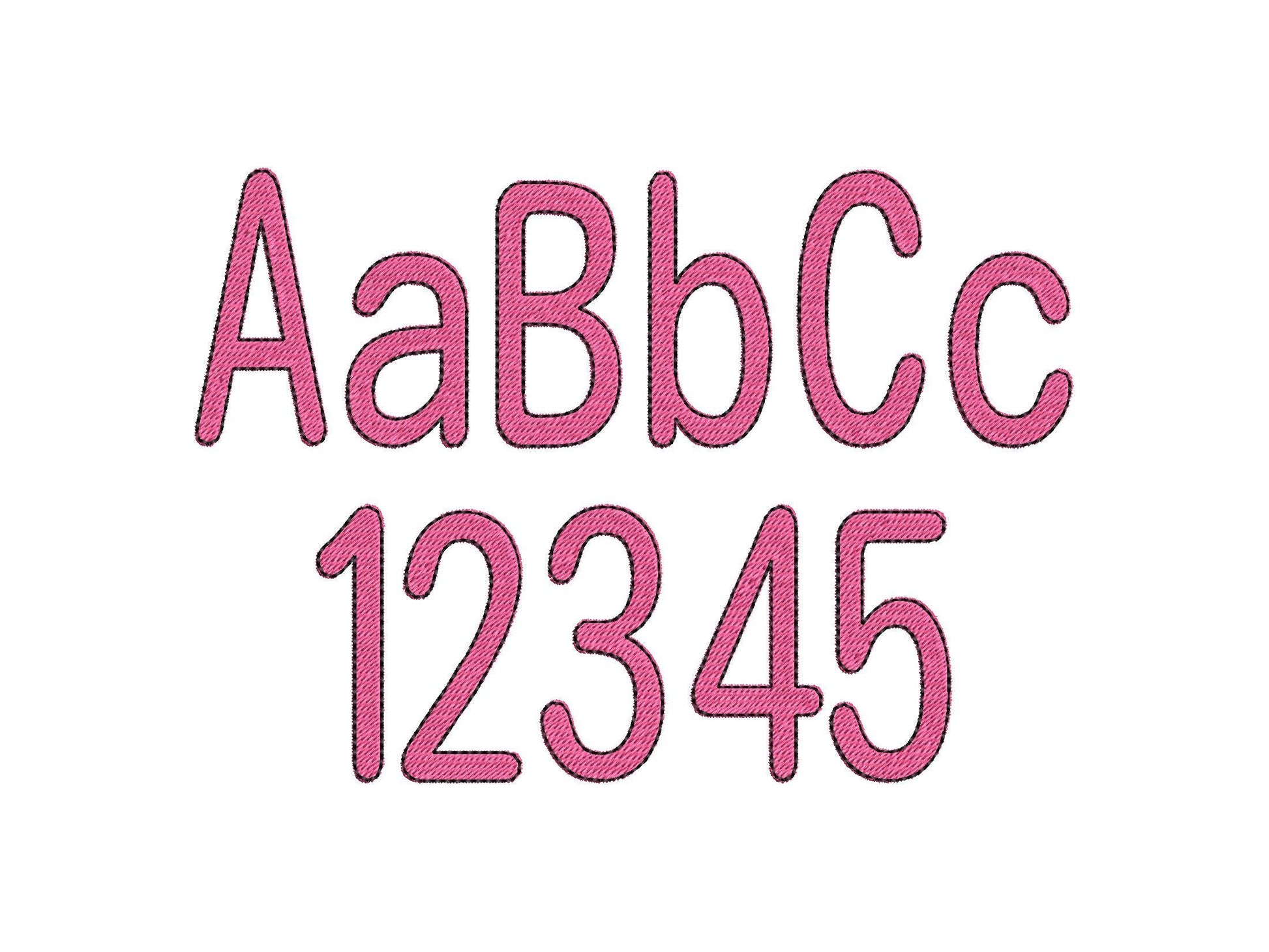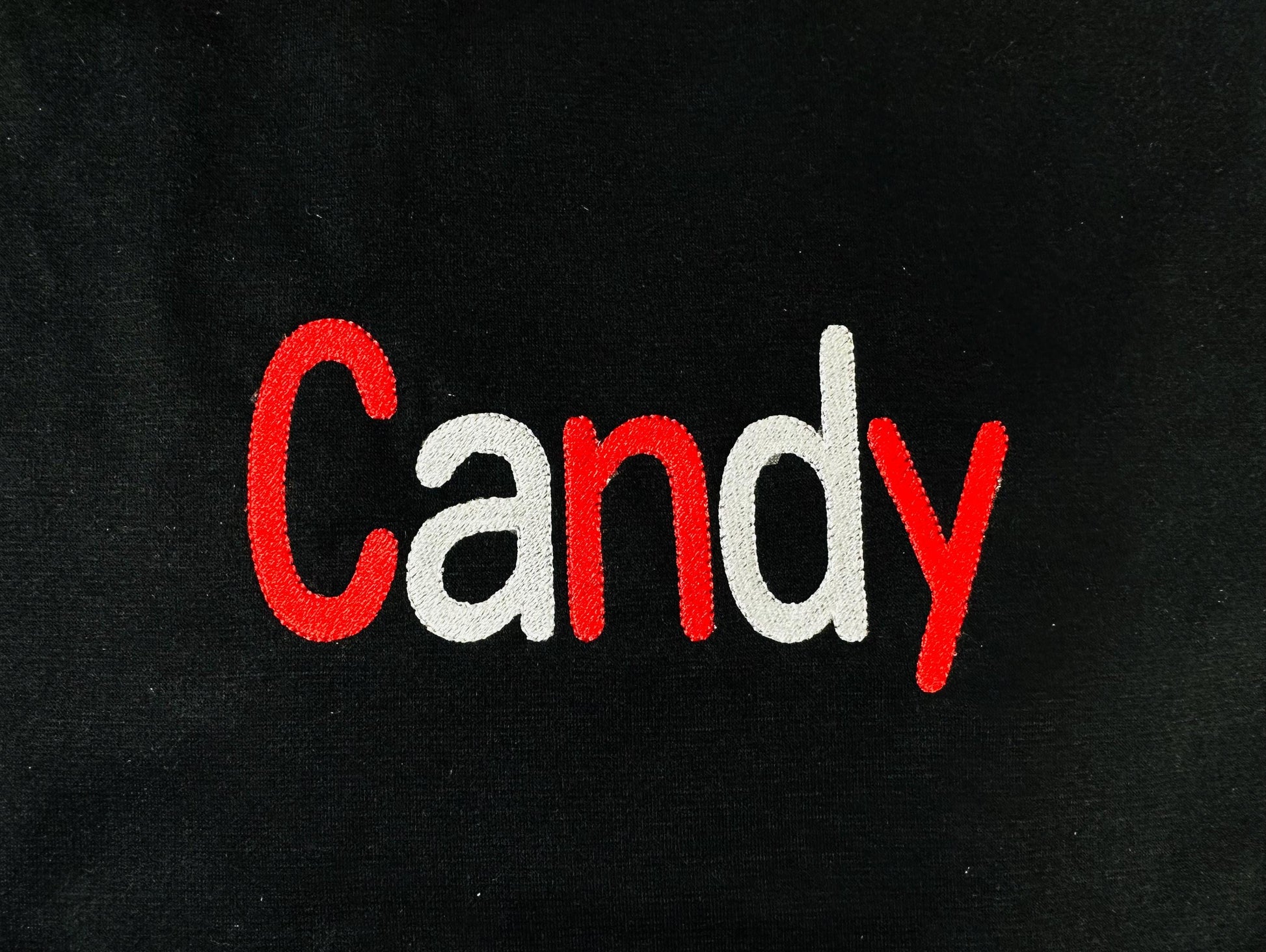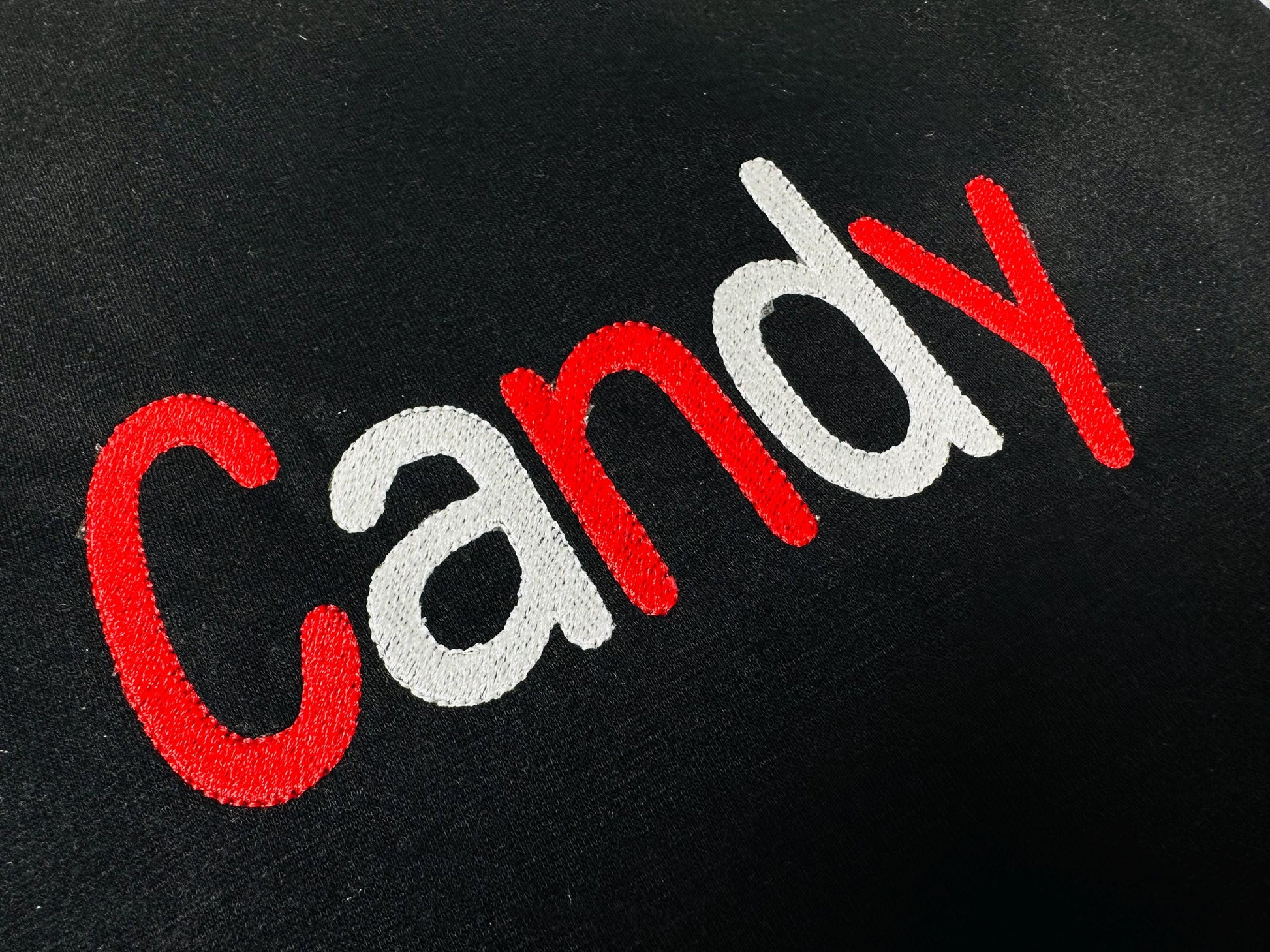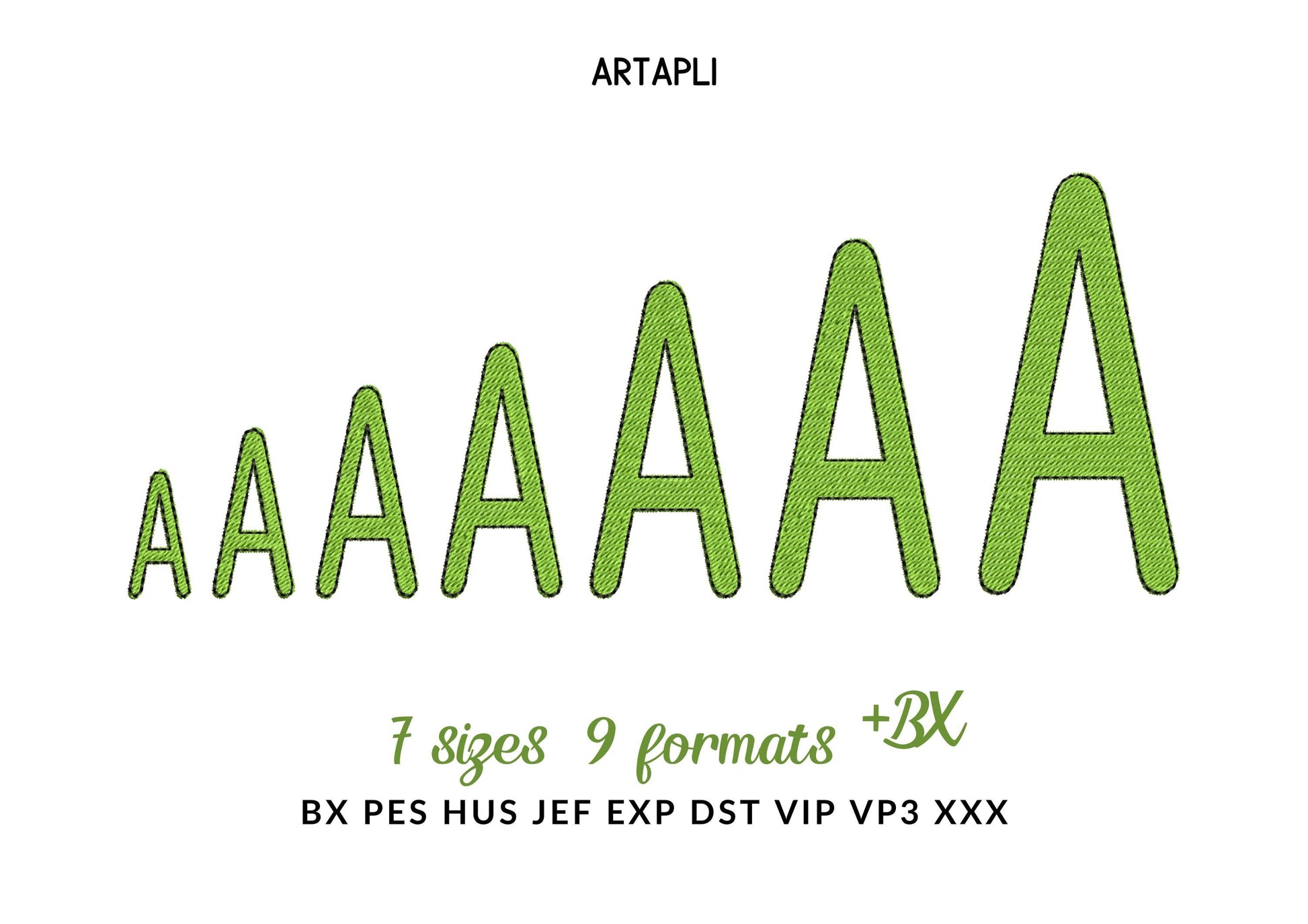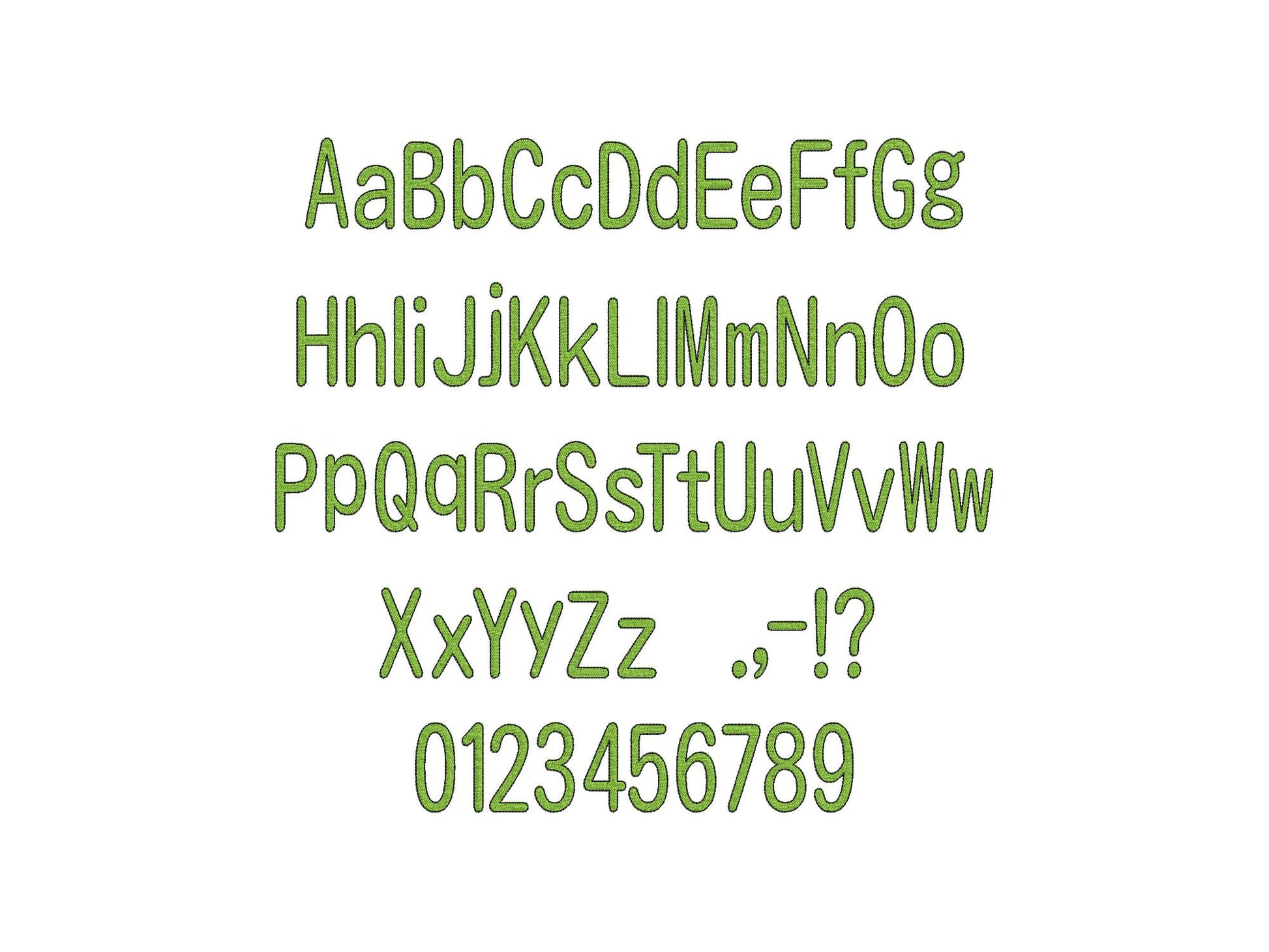
Fill Stitch Narrow Thin Font
Or click to open the linkA narrow, thin candy font in fill stitch with an outline, for names and words on shirts, bags and holiday gifts.
Uppercase and lowercase letters, numbers and punctuation in seven sizes: 1, 1.4, 1.7, 2.1, 2.6, 3 and 3.4 inches.
- Narrow fill stitch font with outline
- Uppercase, lowercase, numbers 0-9, punctuation
- 7 sizes, 1 to 3.4 in